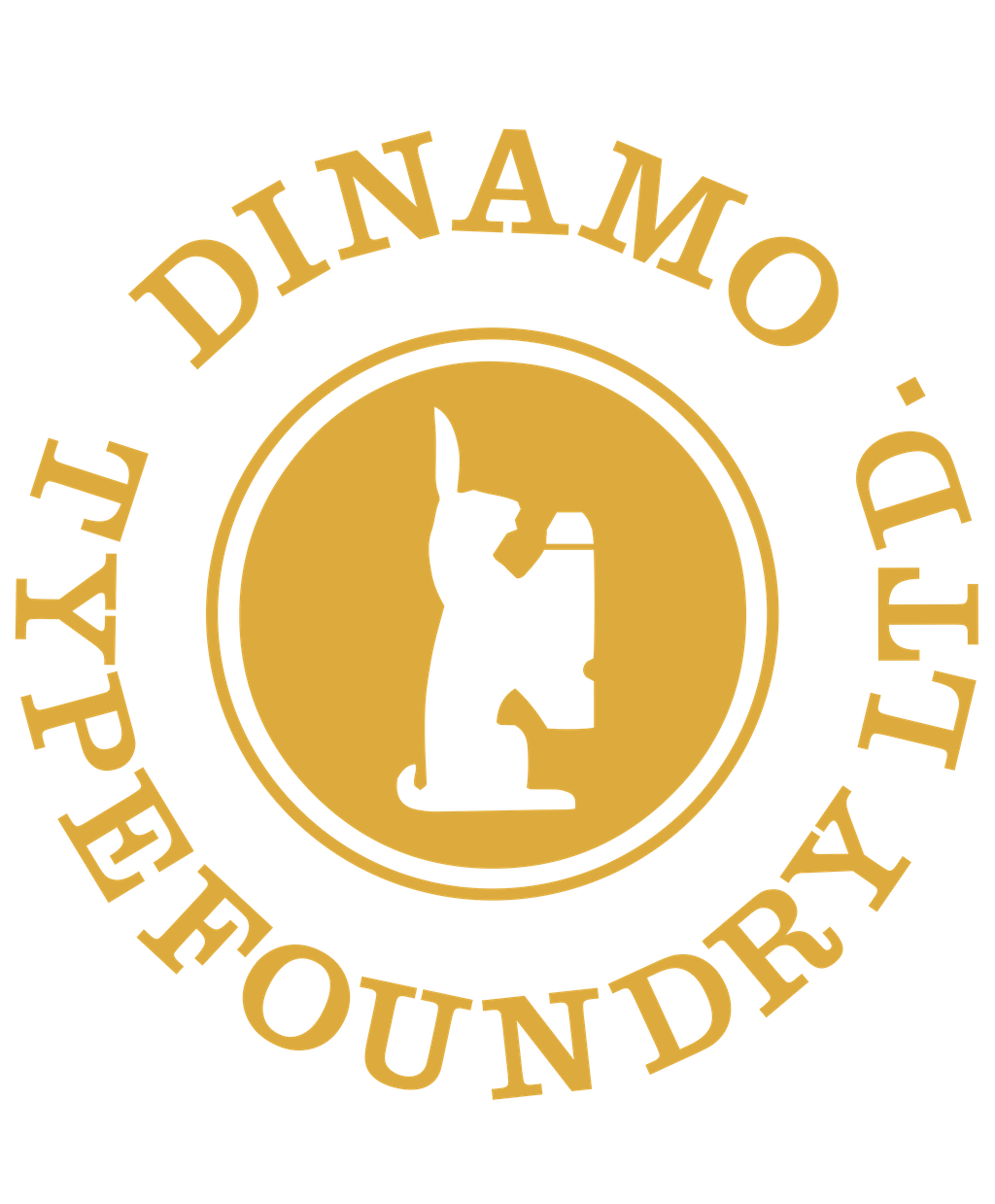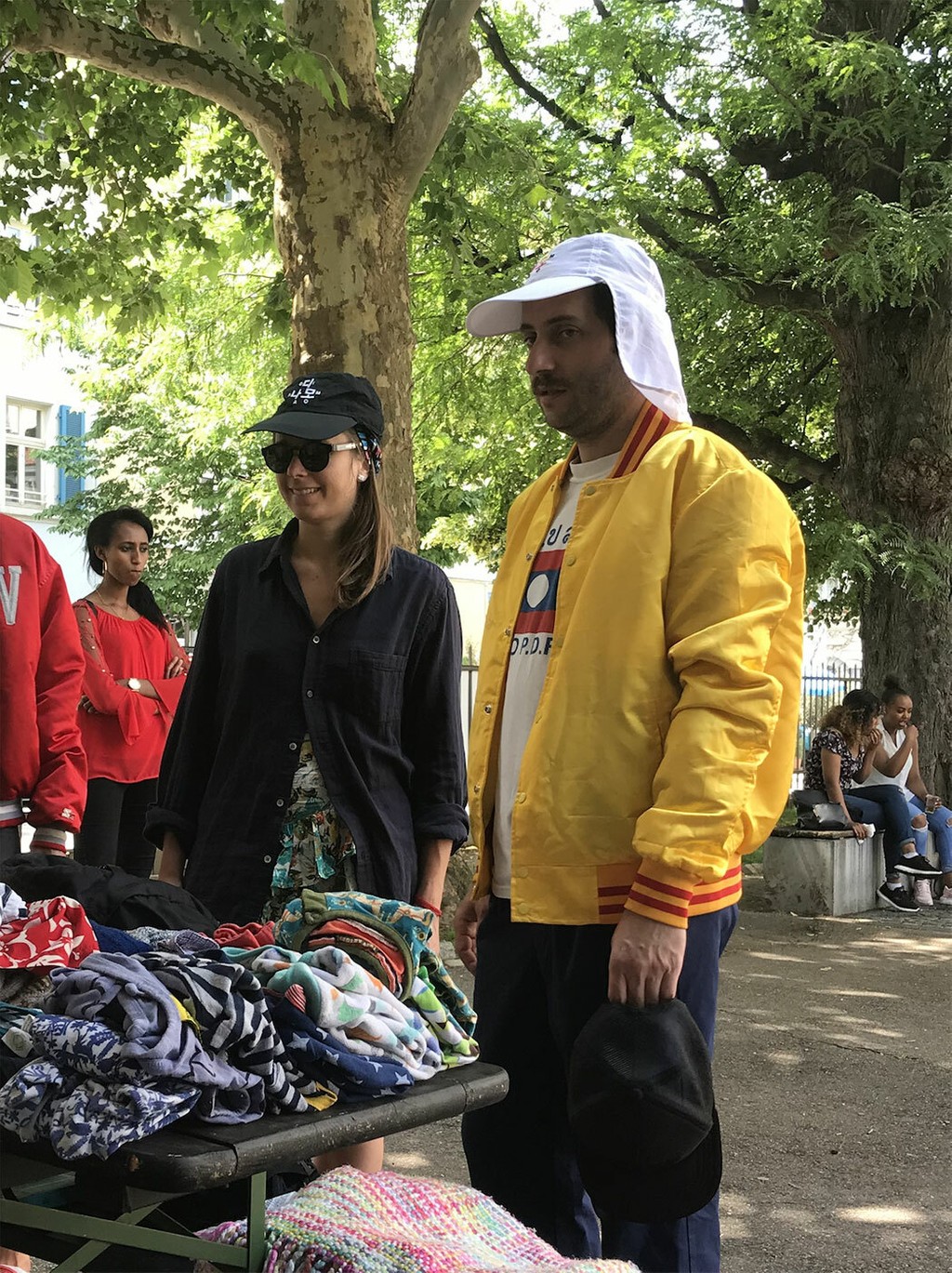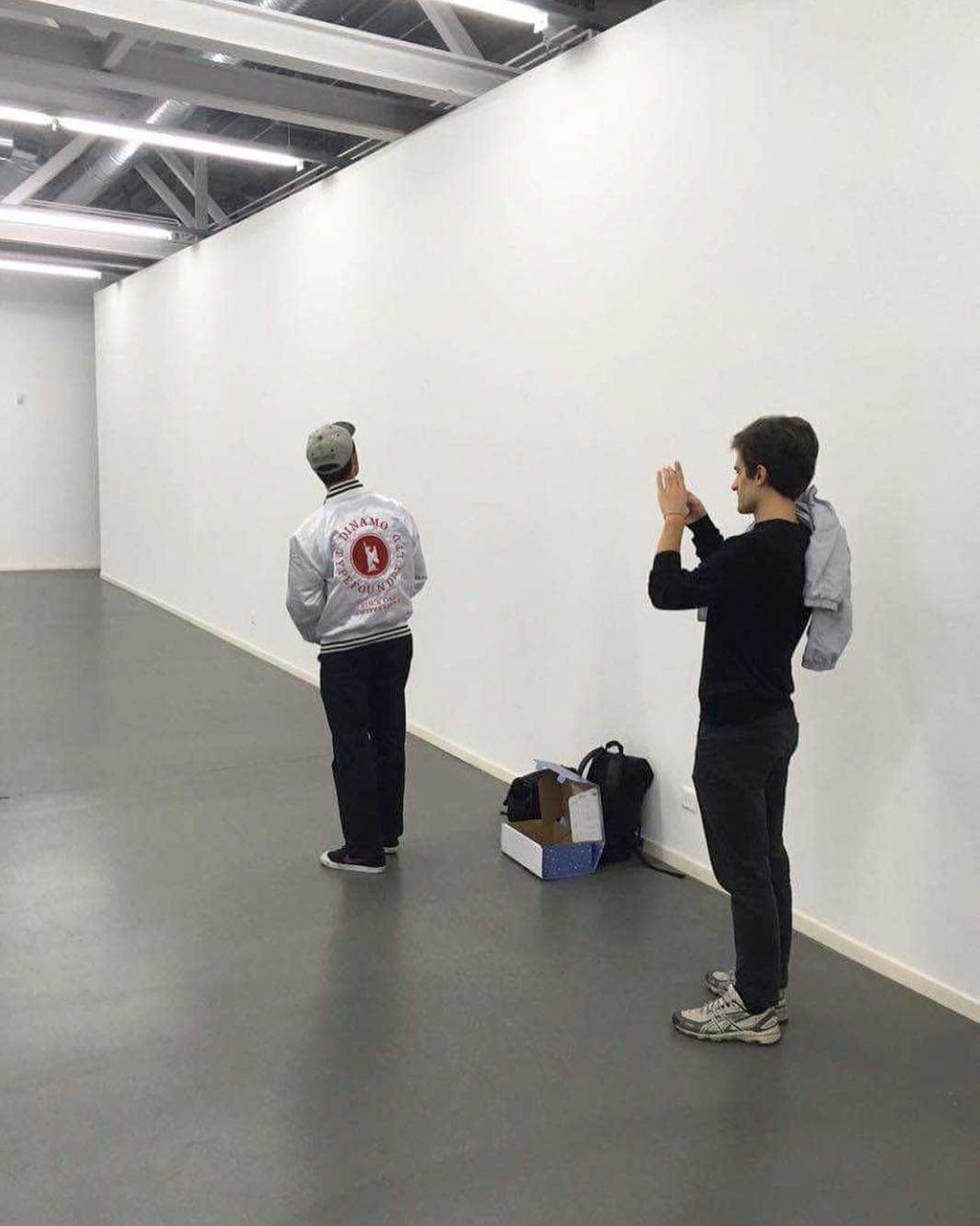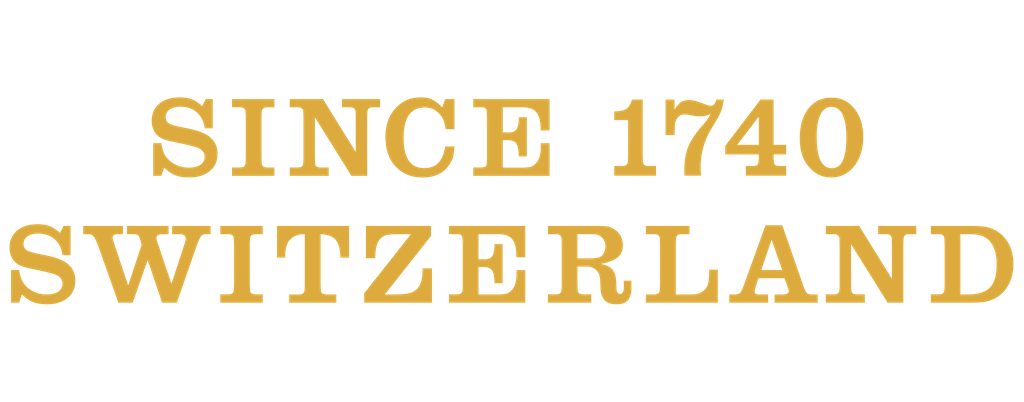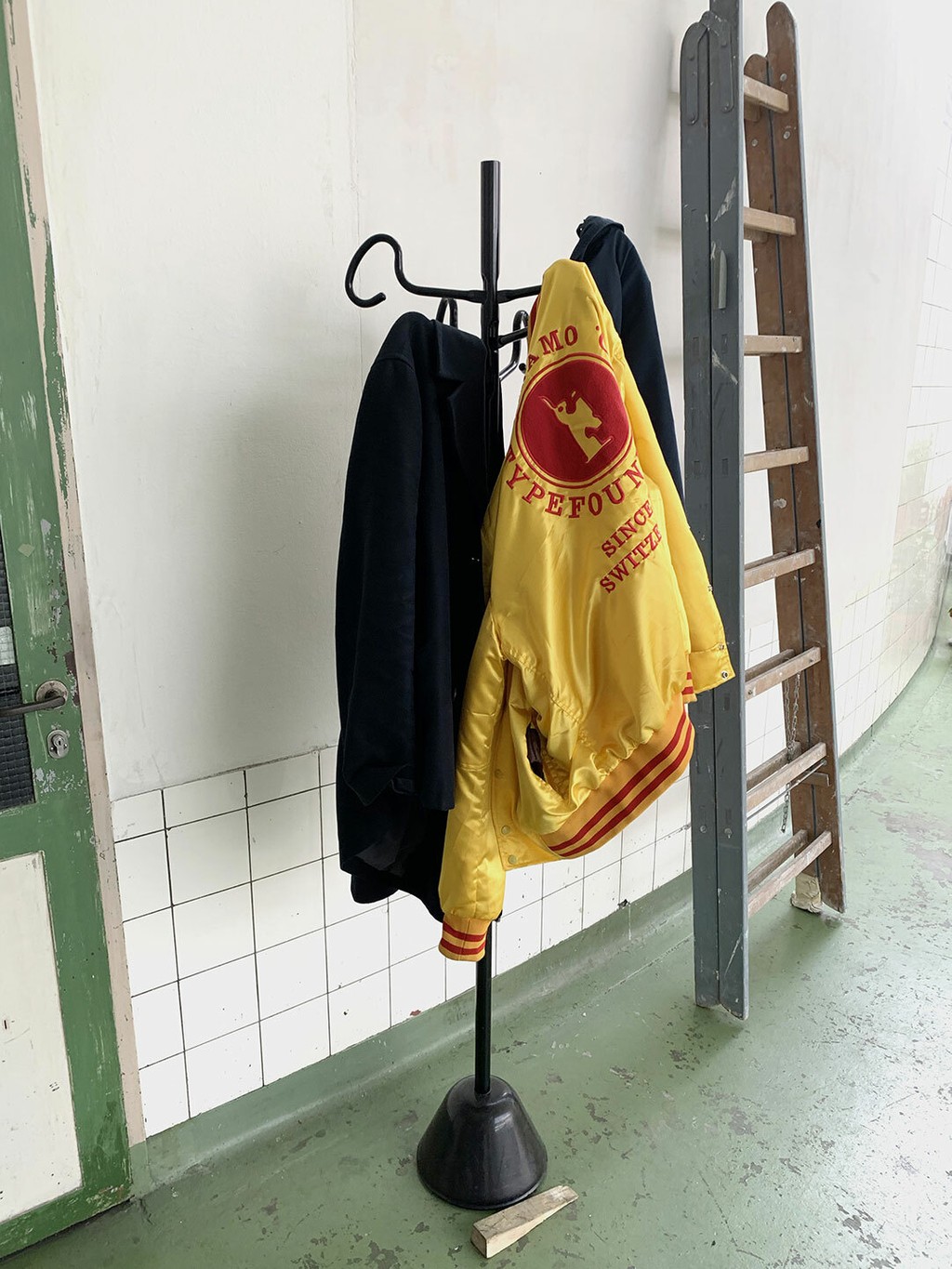
Dinamo Letter Jacket
We've always had a soft spot for American college jackets with their emphatic collegic letters on the back; for a while, Fabian even had his own from the University of Nevada, Las Vegas. After seeing an old photo from a Association Typographique Internationale meeting at the Haas foundry with Adrian Frutiger etc. wearing matching overcoats, we realized that we should step it up and make our own Letter Jacket, one that rearranges Haas's template to fit the Dinamo mould.
- Alibaba Bootleg NBA Starter Jackets
- Silk Yarn Embroidery